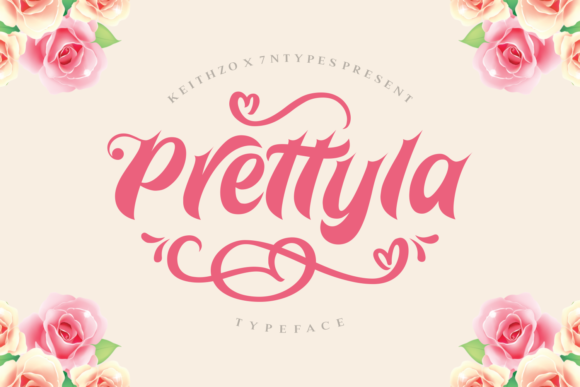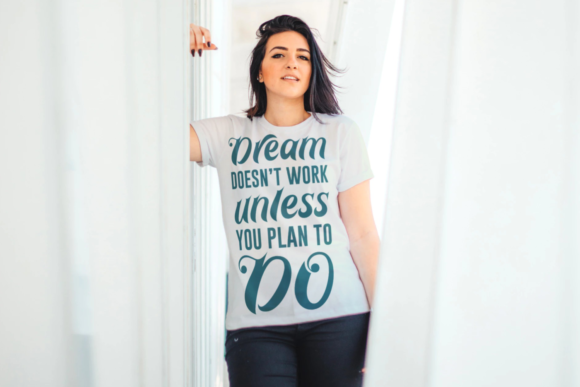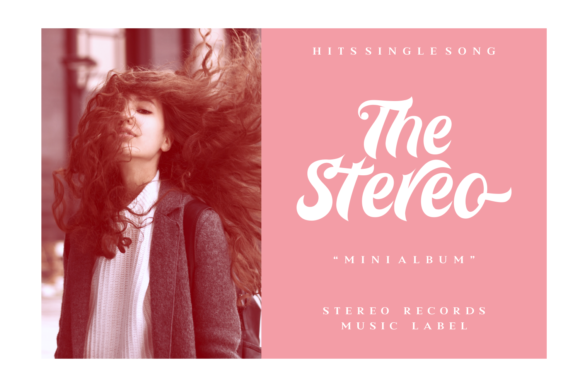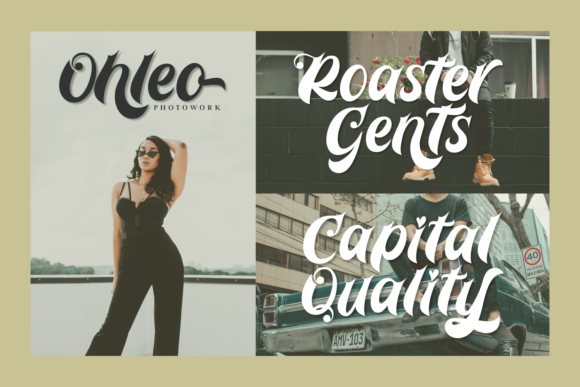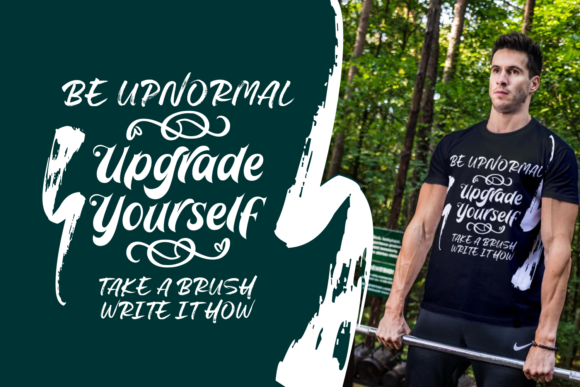
Prettyla Font
About Prettyla Font
The Prettyla is an unique script font. It has a bold, yet elegant touch which will add a luxurious feel to your designs.